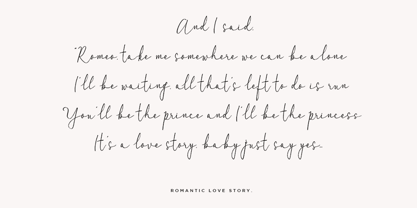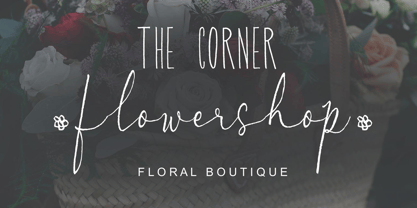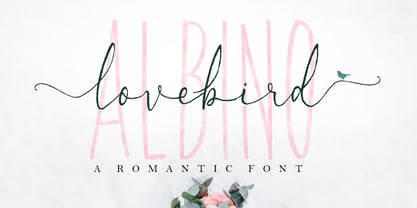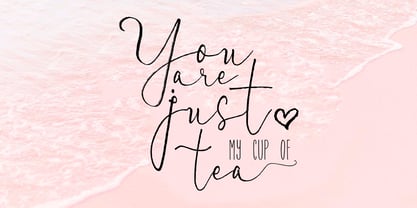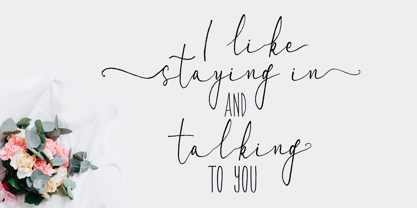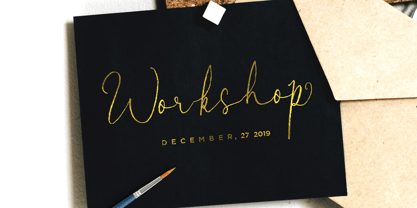
Albino Lovebird Font
by RCKY Studio
The Albino Lovebird Font Font Family was designed by Rizki Agam Fonna and published by RCKY Studio. Albino Lovebird Font contains 2 styles and family package options. More about this family
Albino Lovebird Font is a romantic brush font duo with contemporary and sophisticated accents. Suitable for use in watercolor designs. Such as Novel titles, Clothing, Invitations, Quotes, Book Titles, Stationery Designs, Branding, Logos, Greeting Cards, T-shirts, Packaging Designs, Posters, and more.
Albino Lovebird Font includes a full set of uppercase and lowercase letters, as well as multilingual support, numbers, punctuation, ligatures, and alternate characters, also with additional Albino Lovebird Font Sans and additional swashes.